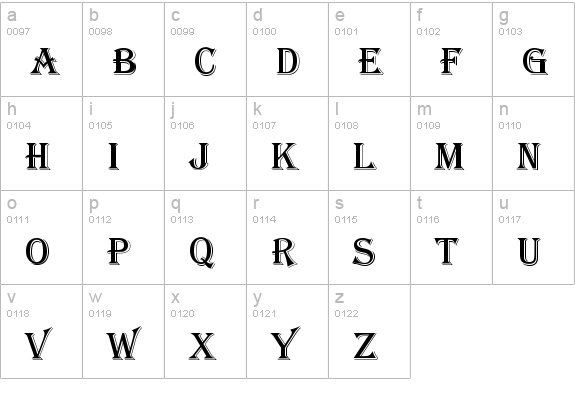
Algerian D Font Details
Algerian D font is a unique and stylish typeface that exudes elegance and sophistication. With its intricate details and ornate design, this font is perfect for adding a touch of class to any project. Whether you're designing invitations, posters, or logos, Algerian D font is sure to make a statement. The best part? Algerian D font is completely free! That's right, you can download this stunning font for no cost at all on FontsMarket.com. Don't miss out on this opportunity to enhance your designs with the beauty of Algerian D font. Download it today and let your creativity shine!